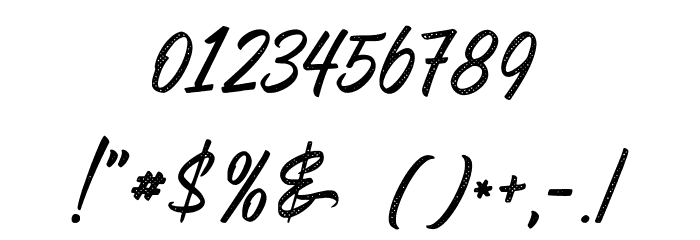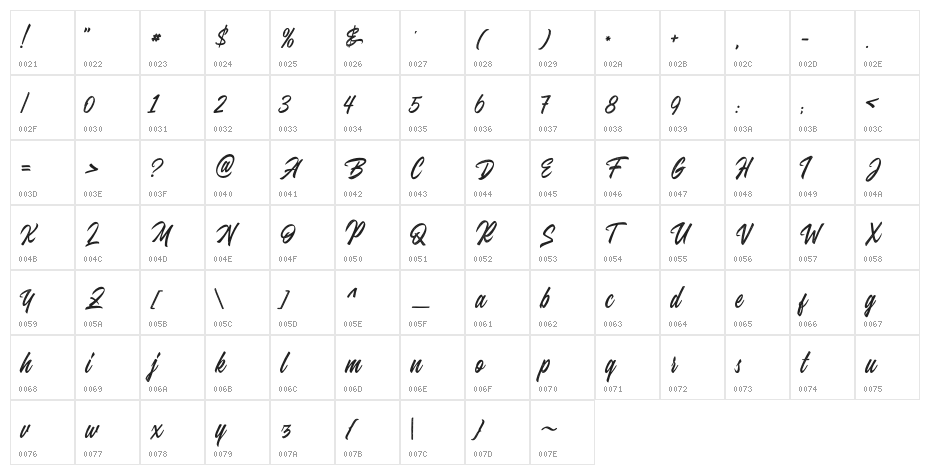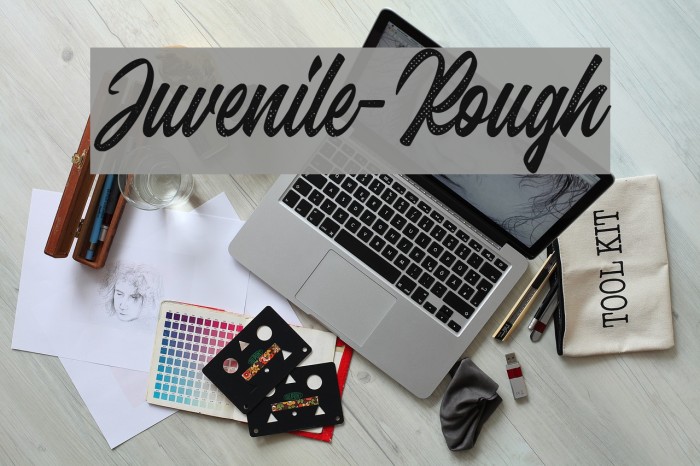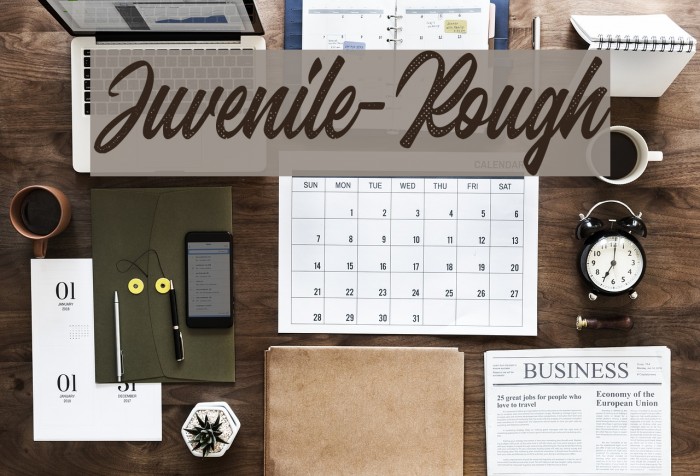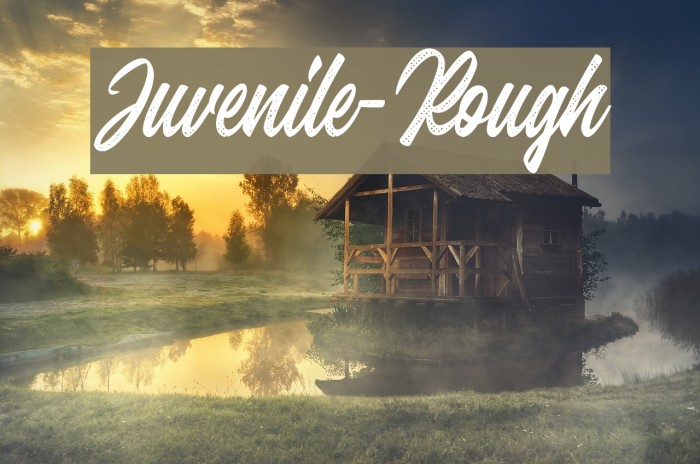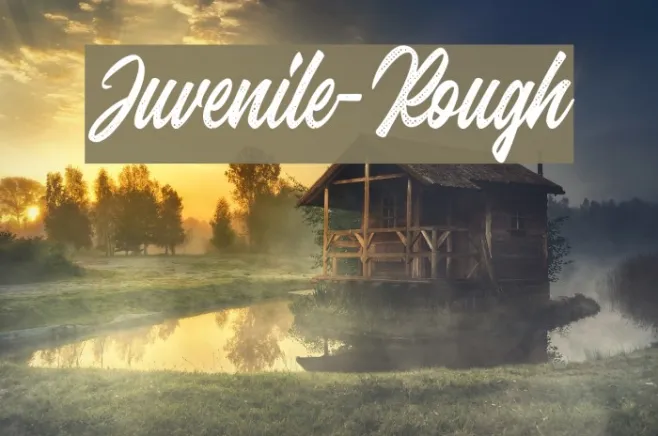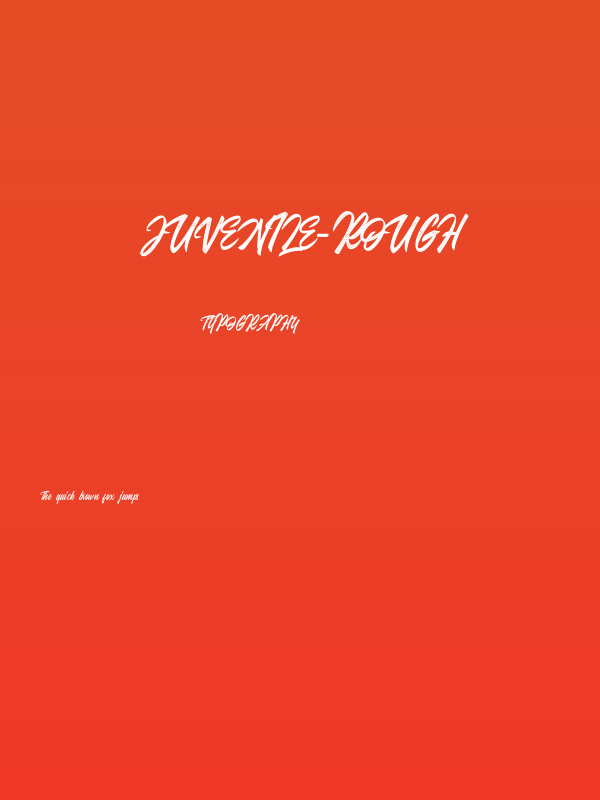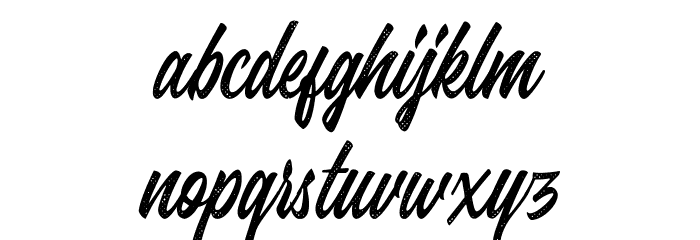
Juvenile-Rough Font
Juvenile-Rough Description
This font exhibits a dynamic and energetic style, characterized by its rough, textured appearance that mimics a hand-drawn or brush script. The letters are slanted, giving a sense of motion and fluidity, while the rough edges add a gritty, urban feel. The uppercase and lowercase letters maintain a consistent style, with the uppercase being slightly more pronounced. The numerals and special characters follow the same aesthetic, ensuring a cohesive look across all text. This font's unique texture and slant make it stand out, perfect for projects that require a bold, artistic touch.
| Overall Style | Modern, Urban |
| Proposed Projects | Ideal for streetwear branding, music album covers, graffiti art, and edgy event posters. |